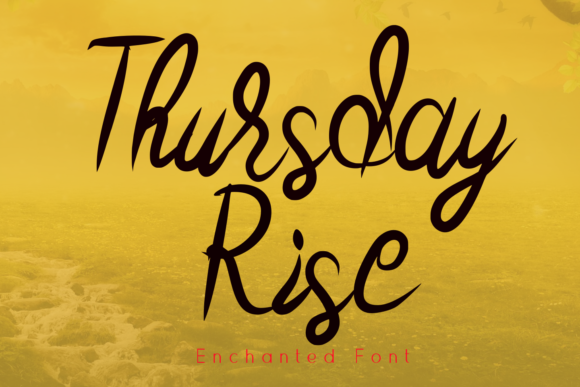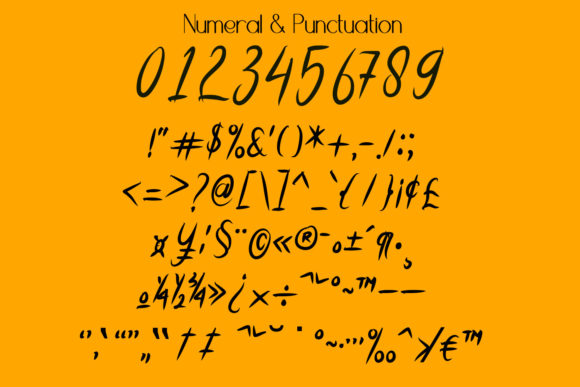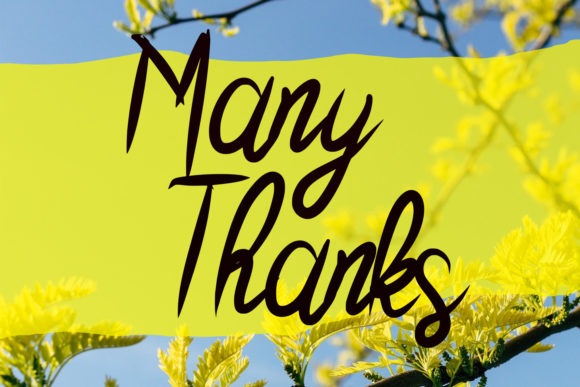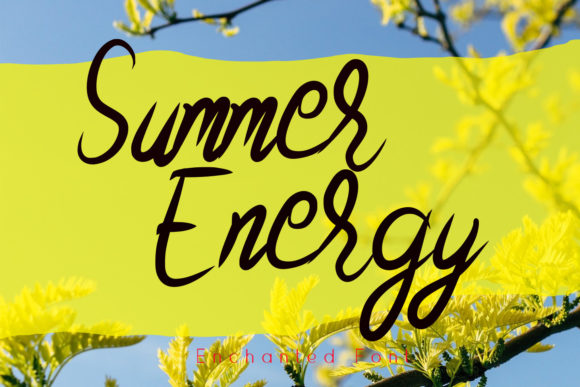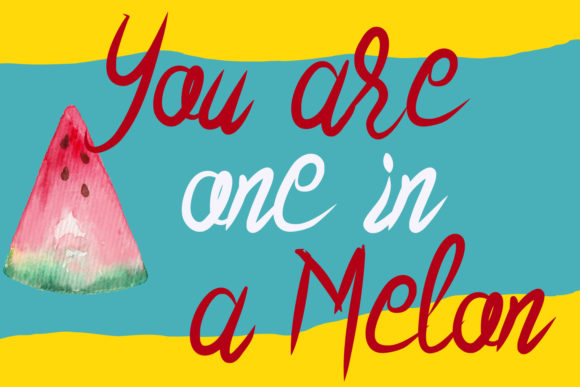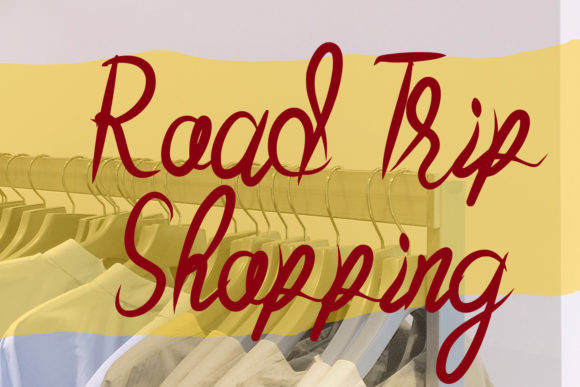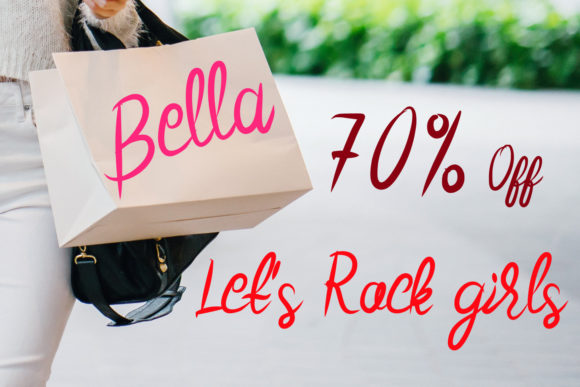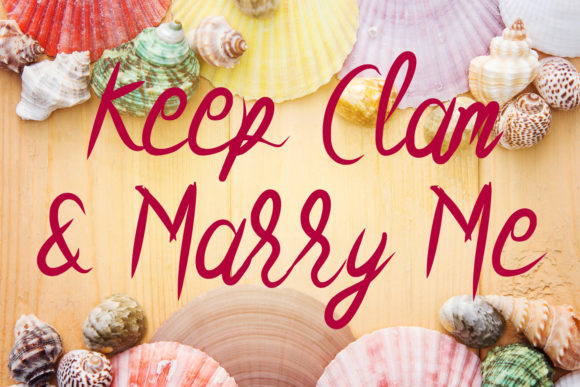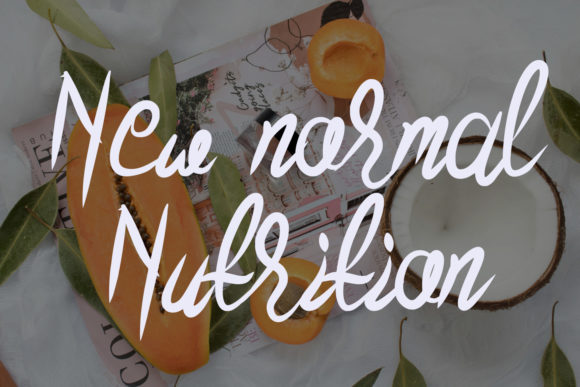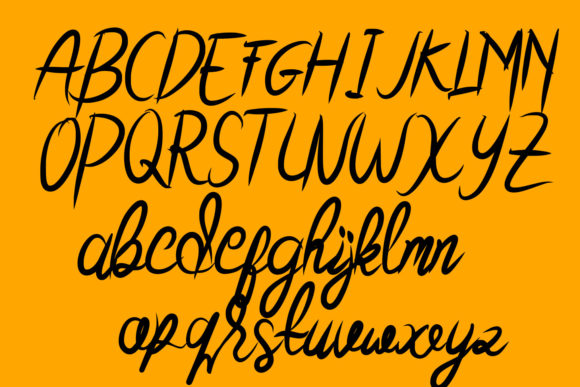
Thursday Rise Font
About Thursday Rise Font
Thursday Rise feels modern and contemporary. This stunning handwritten font is a stylish homage to classic calligraphy. It will elevate a wide range of design projects to the highest level, be it branding, headings, wedding designs, invitations, signatures, logos, labels, and much more!